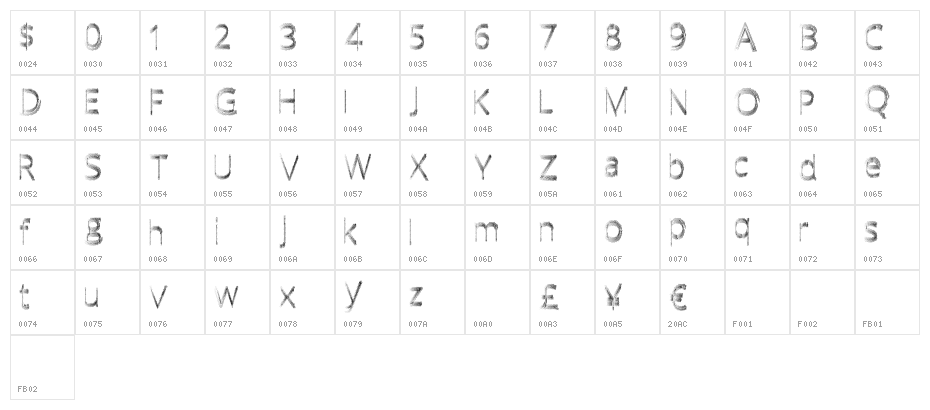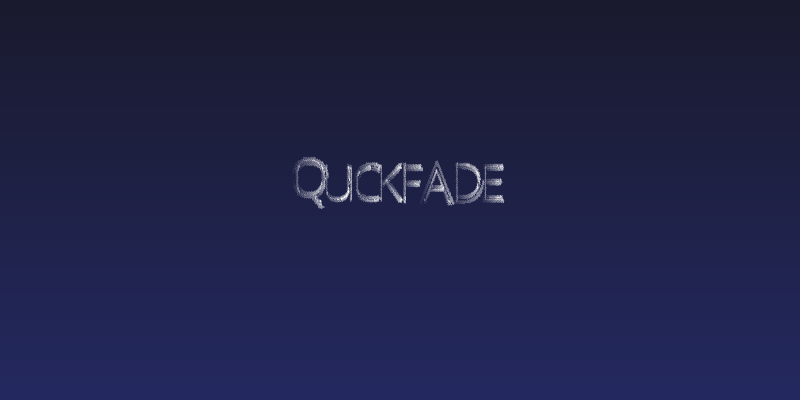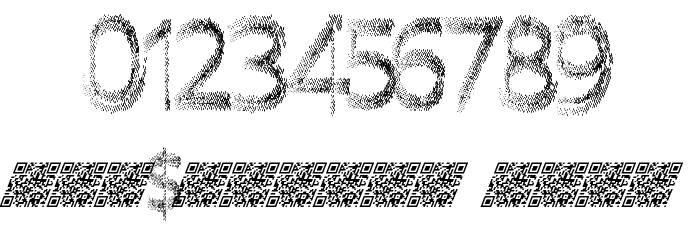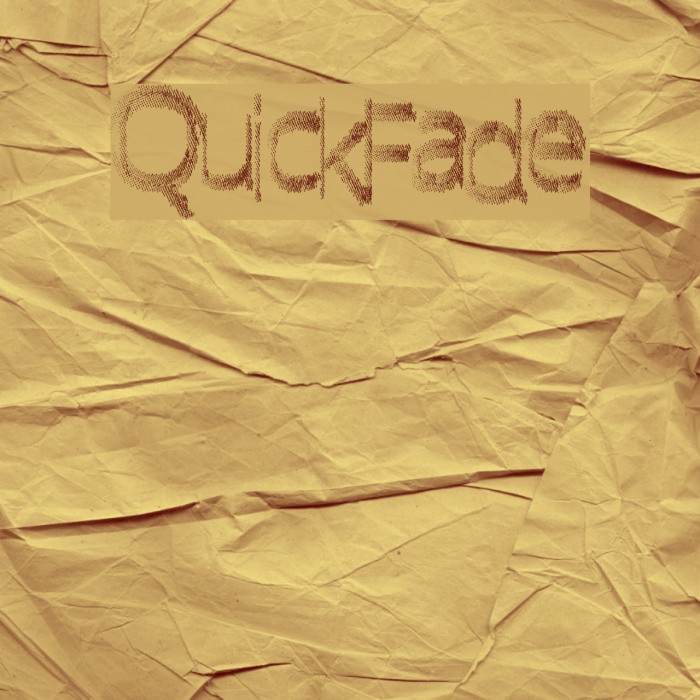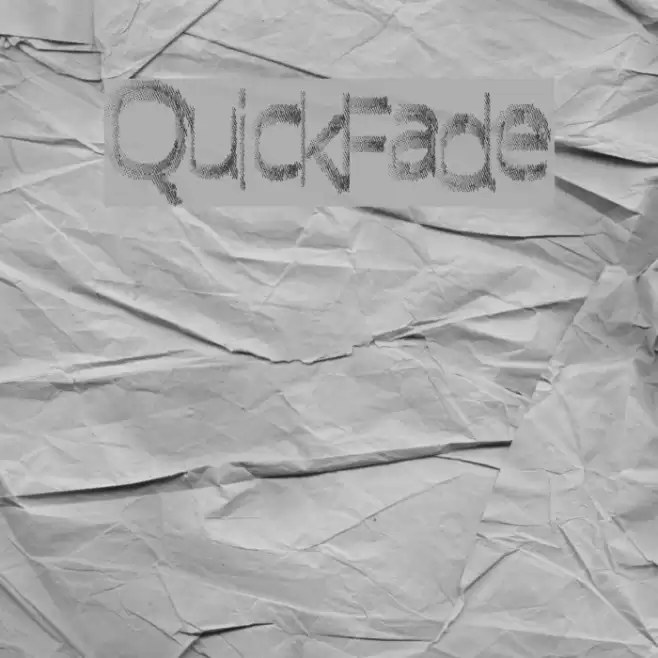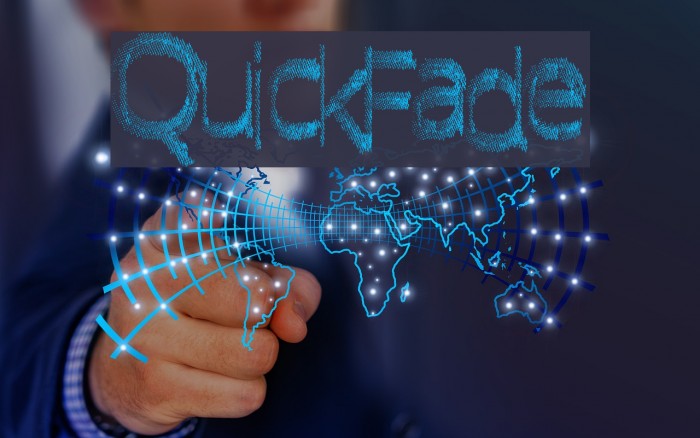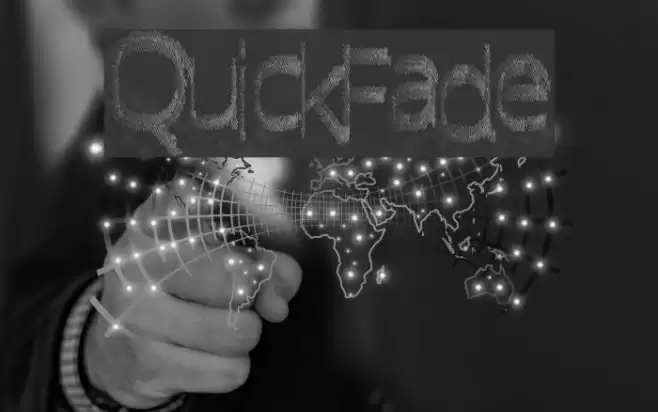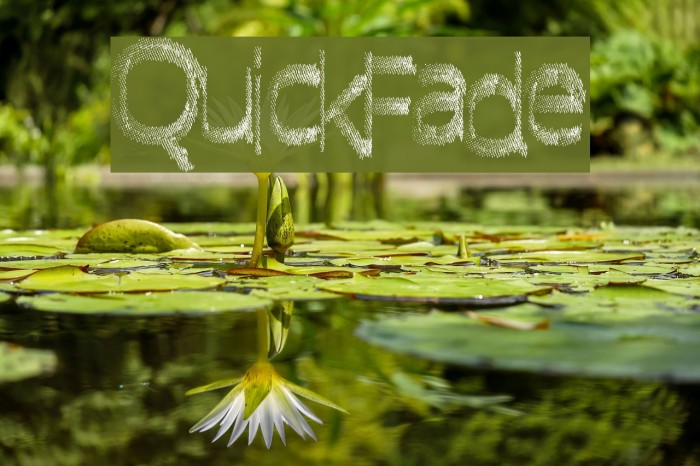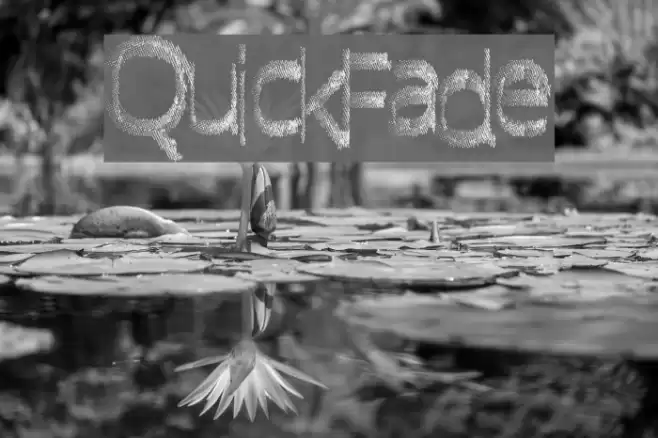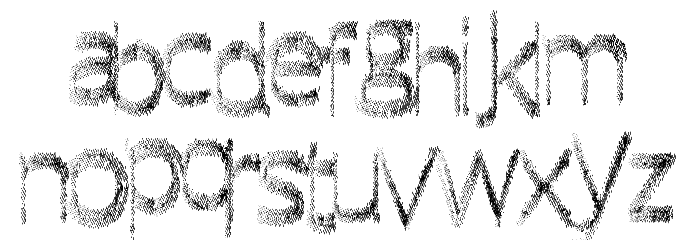
QuickFade Font
QuickFade Description
This font features a unique, textured design that gives the impression of fading or dissolving at the edges. The characters are sans-serif with a modern and artistic flair, making them stand out with a distinct visual appeal. The uppercase and lowercase letters maintain a consistent style, with a slightly condensed width that adds to the compact and efficient use of space. The numbers and special characters follow the same design principles, ensuring uniformity across the entire character set. The font's high contrast between the bold strokes and the fading edges creates a dynamic and eye-catching effect, suitable for creative and contemporary projects.